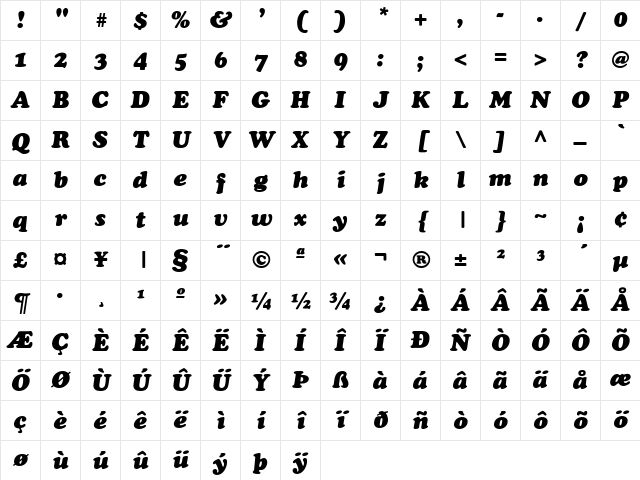
Cupertino Italic
Cupertino Family
Cupertino Italic
Design Context for Cupertino
Cupertino is a composed and adaptable typeface that performs quietly and consistently across a wide range of design contexts. The slanted form adds forward momentum and visual energy.
Pro Tip: Use Cupertino for emphasis, pull quotes, and subheadings where its slanted energy can add rhythm to the layout.